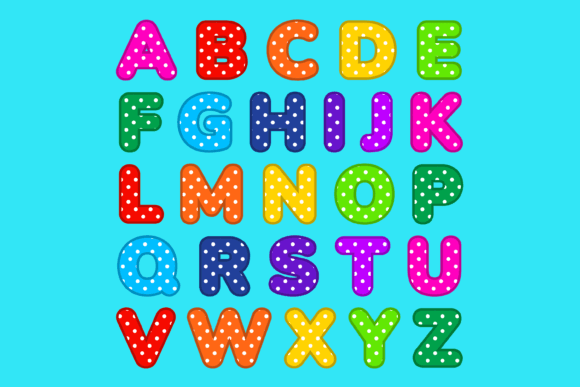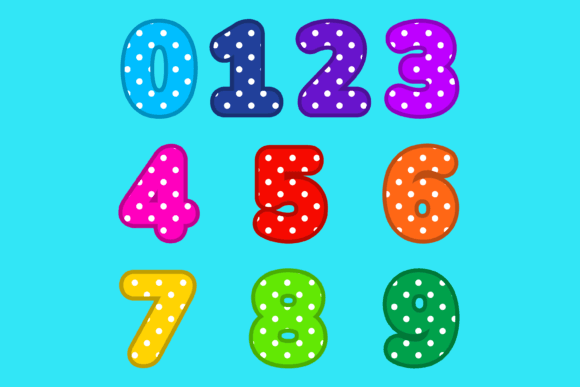
About White Polka Font
Introducing White Polka, an incredibly cool color font adorned with adorable polka dots! This font is designed to add a touch of charm and playfulness to your creative projects. Whether you’re working on custom designs, DIY crafts, or any creation that needs a lovely touch, White Polka will be an amazing choice.
The font features vibrant polka dots embedded within each letterform, creating a whimsical and eye-catching effect. The polka dots add a delightful texture and visual interest to your designs, making them stand out from the crowd. With its charming and playful style, White Polka is perfect for a wide range of projects.
Customize your greeting cards, invitations, posters, packaging, logos, and more with the unique charm of White Polka. Its versatile design allows it to complement various themes and styles, adding a touch of fun and character to your creations. Whether you’re aiming for a cute and whimsical look or a bold and vibrant design, White Polka can adapt to suit your needs.
This font is a wonderful choice for DIY crafts, allowing you to create personalized items such as stickers, labels, home decor, and scrapbooking projects. Its playful polka dots bring a sense of joy and lightheartedness to your handmade creations, making them even more special.
Embrace the charm of White Polka and let it add a lovely touch to your creative endeavors. Whether you’re designing for personal enjoyment or professional projects, this font will captivate your audience and make a lasting impression. Choose White Polka and let its playful polka dots make your designs truly stand out!